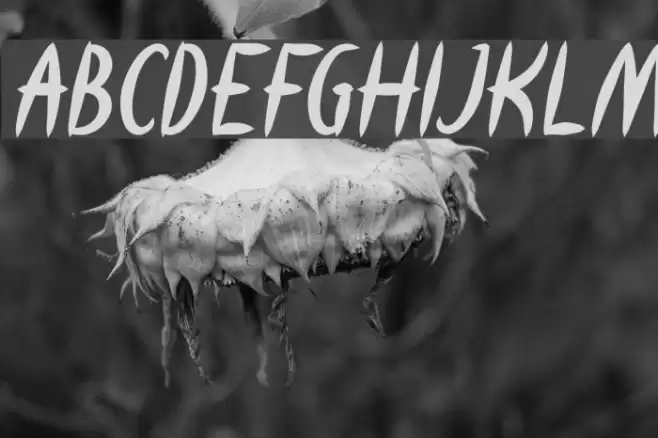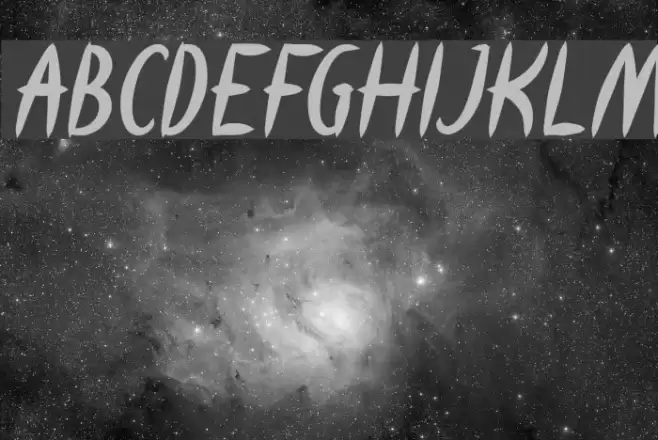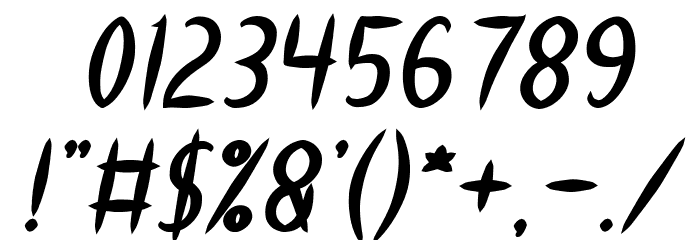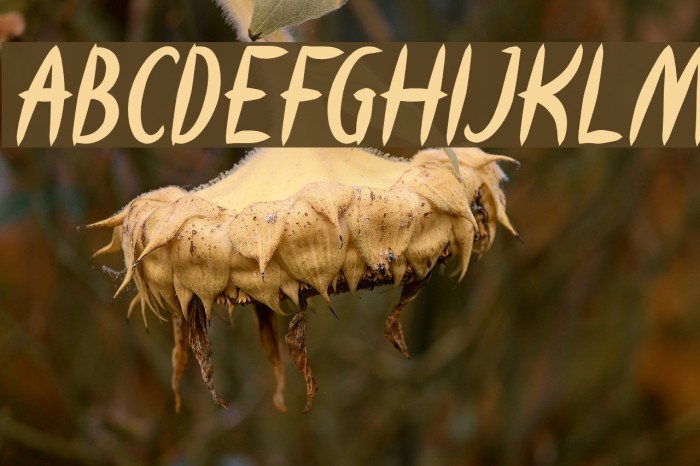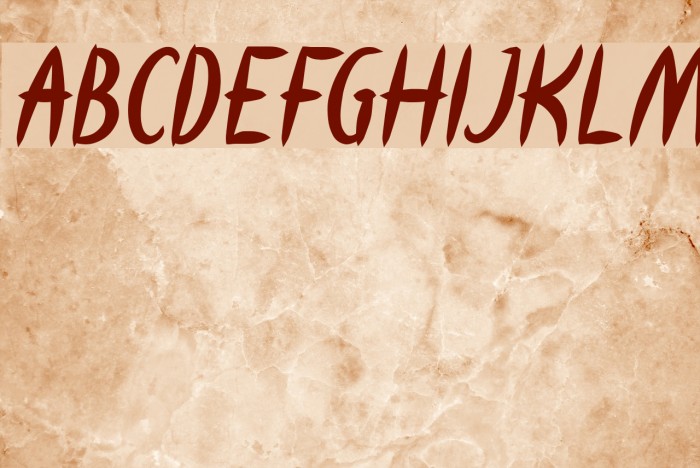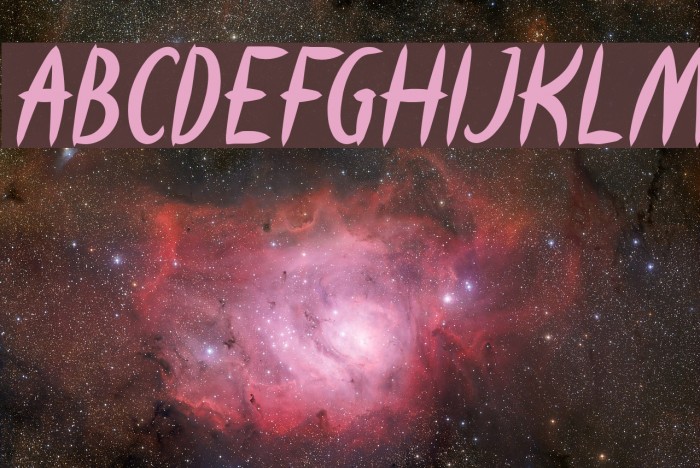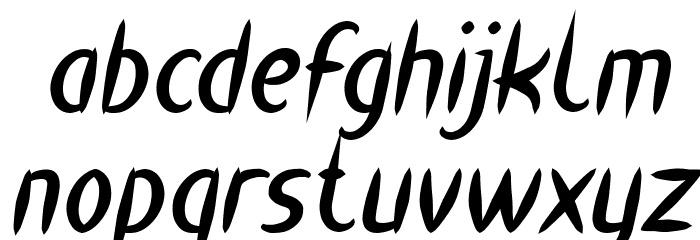
HEART SHAPED Bold Italic Font
HEART SHAPED Bold Italic Description
This font features a bold and italic style with a distinctive handwritten appearance. The characters are slightly slanted, giving a dynamic and energetic feel. The strokes are thick and consistent, providing a strong visual impact. The uppercase and lowercase letters maintain a cohesive style, with rounded edges and smooth curves. The numbers and special characters are designed to match the overall aesthetic, ensuring uniformity across all elements. This font is both playful and assertive, making it suitable for various creative applications.
A bold, italic handwritten font with a dynamic and energetic style from Uncategorized fonts.
- Proposed Projects: Ideal for greeting cards, posters, branding, and social media graphics where a lively and personal touch is desired.